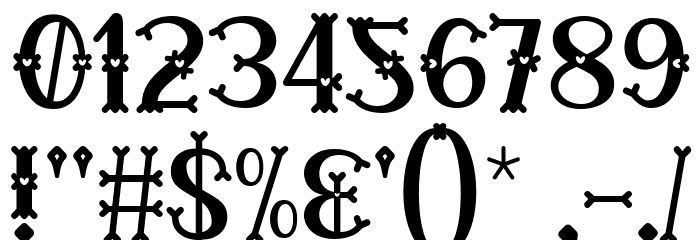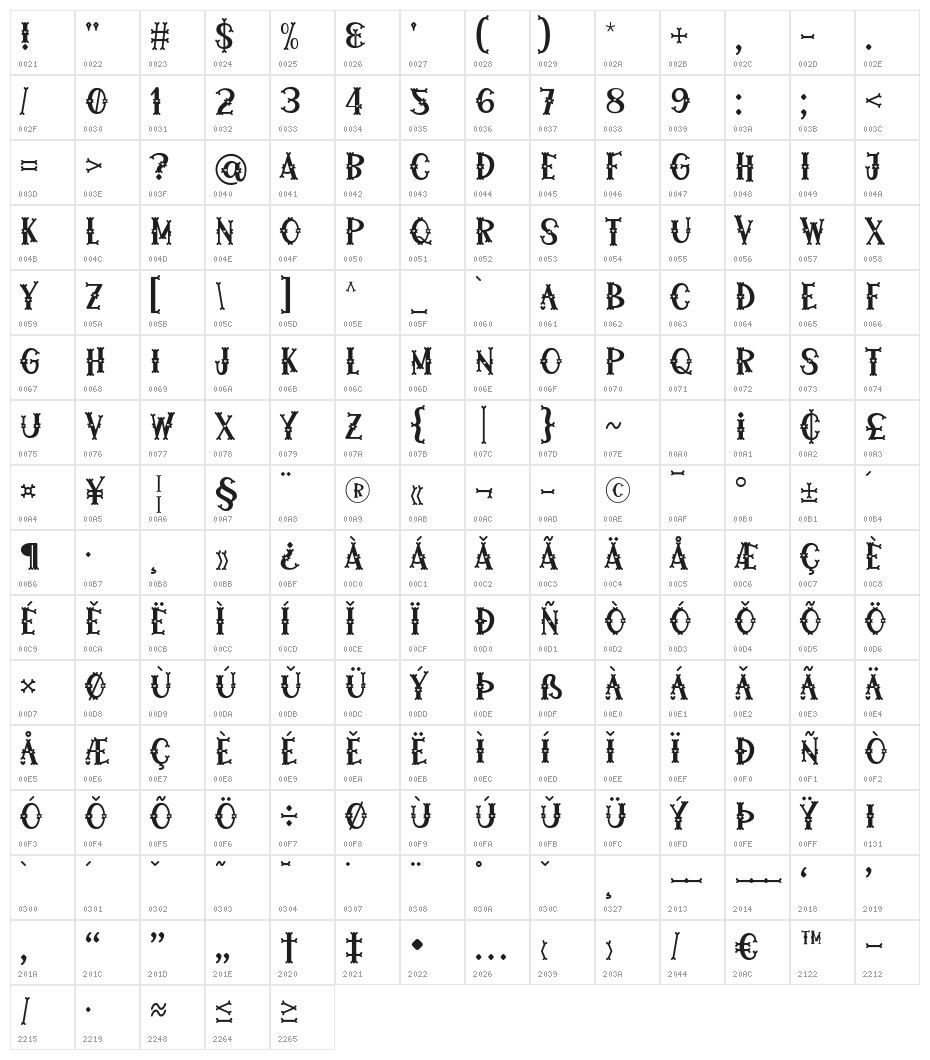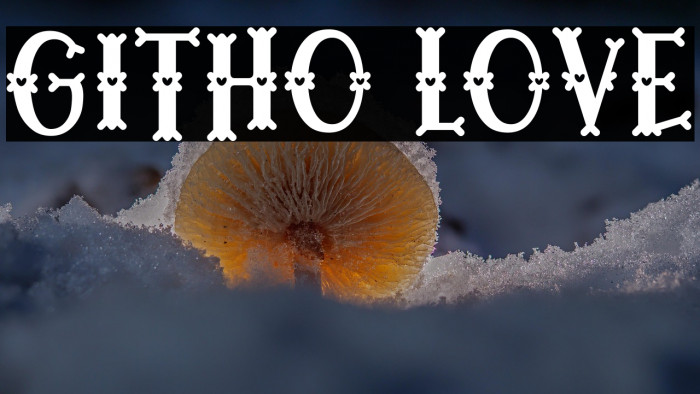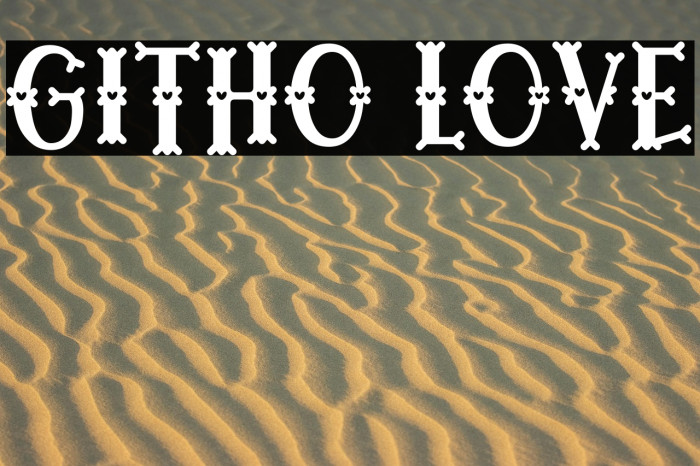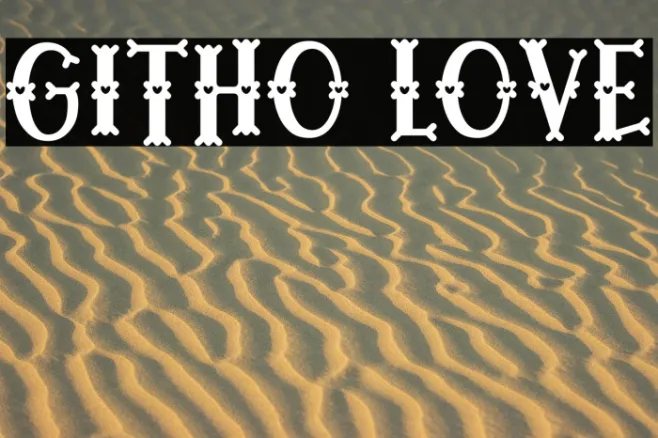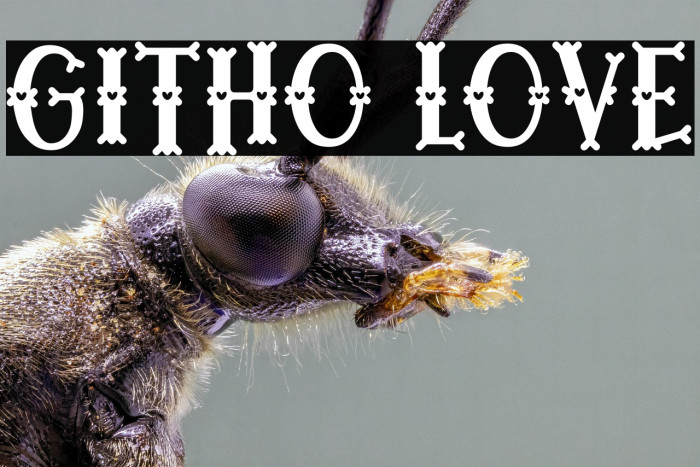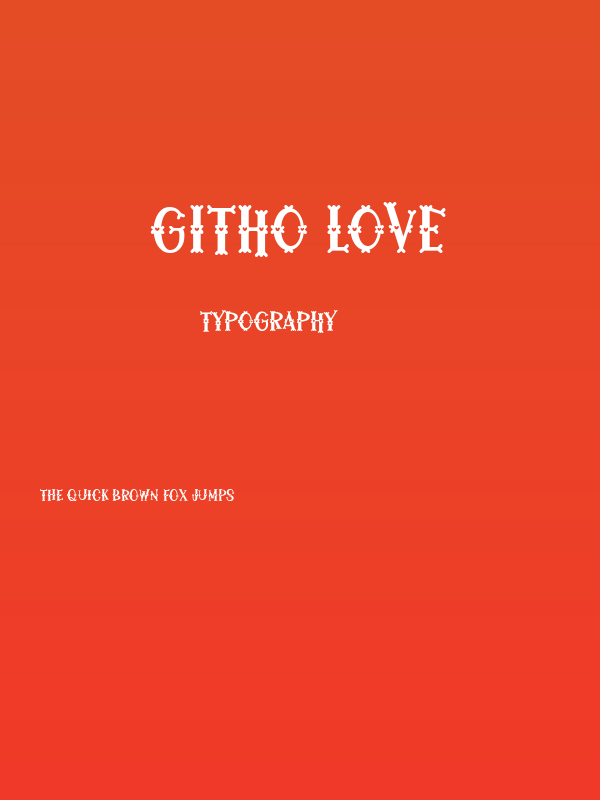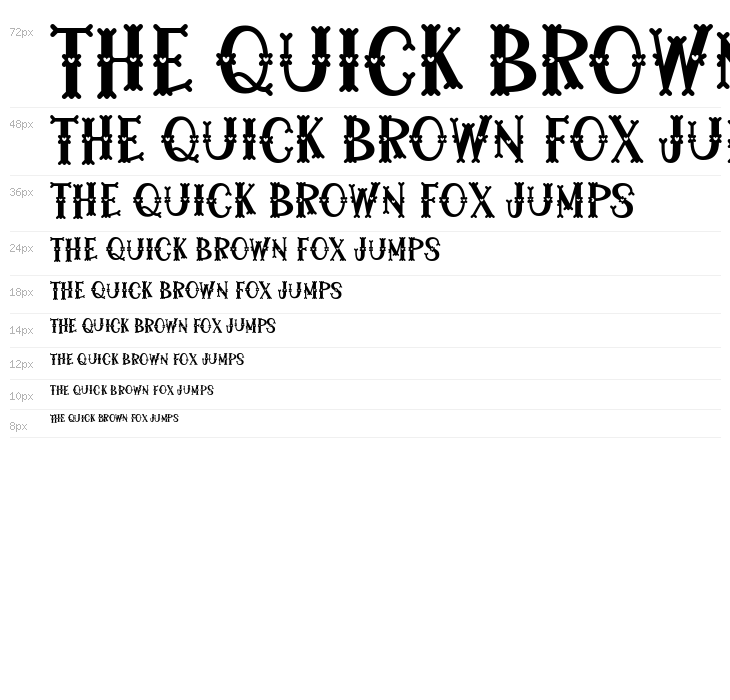
Githo Love Font
Githo Love Description
This font features a unique and playful design with heart-shaped elements integrated into the characters. The letters are bold and have a whimsical, decorative style that stands out. The uppercase and lowercase letters maintain a consistent theme, with each character adorned with small heart motifs at the ends of strokes, adding a romantic and charming touch. The numerals and special characters follow the same decorative pattern, making the font cohesive and visually appealing. The overall design is both eye-catching and fun, suitable for projects that require a touch of personality and flair.
| Use Case | Headlines, Logos, Invitations |
| Proposed Projects | Ideal for Valentine's Day cards, wedding invitations, love-themed posters, and playful branding projects. |